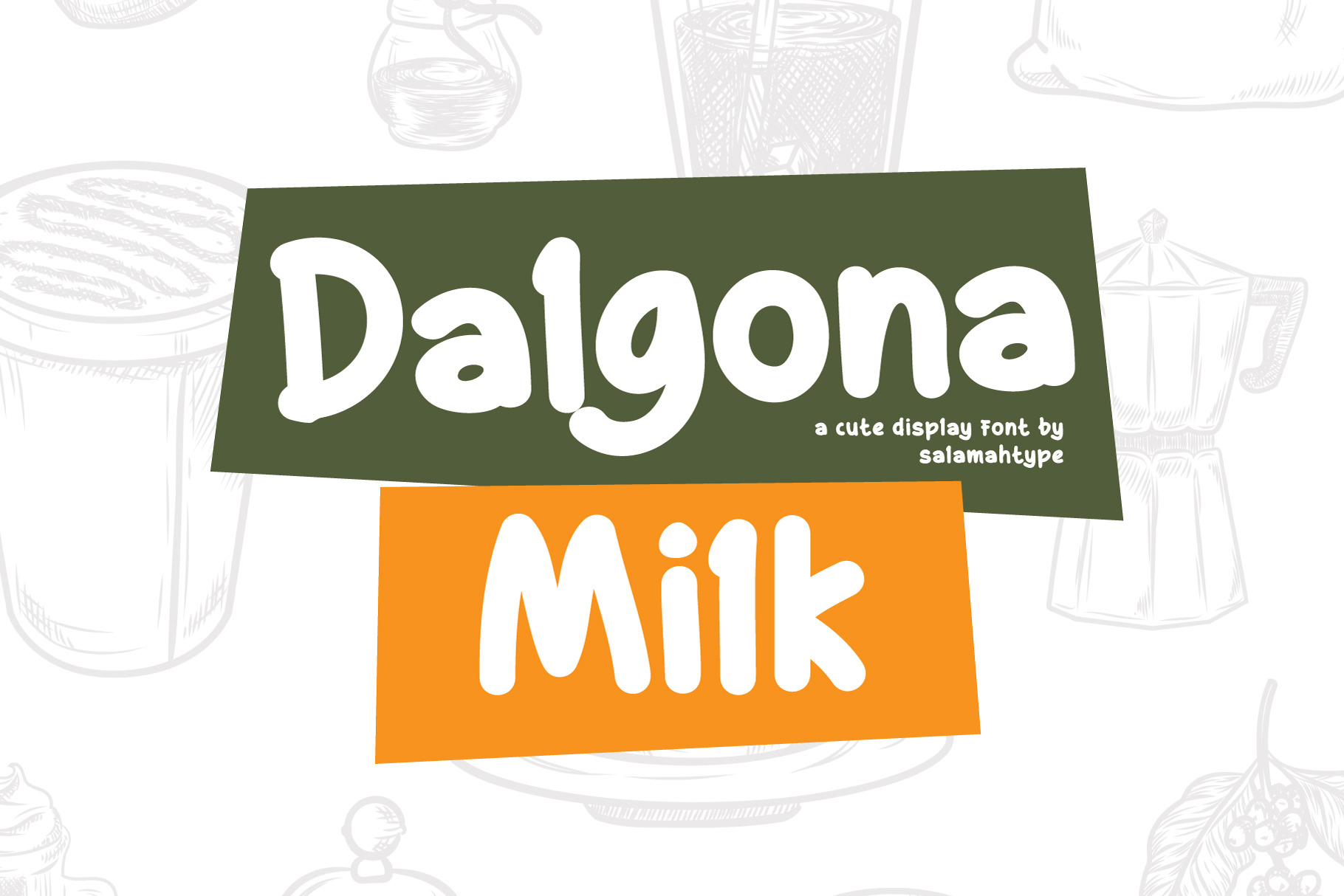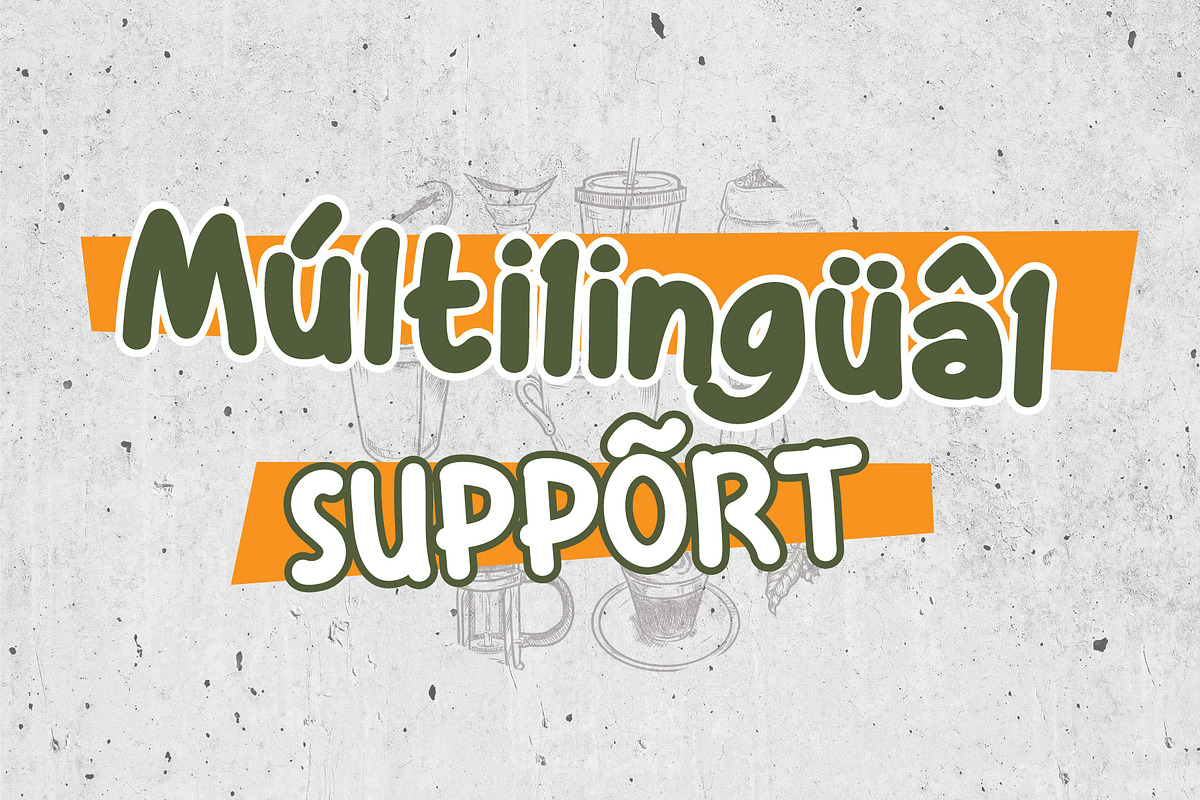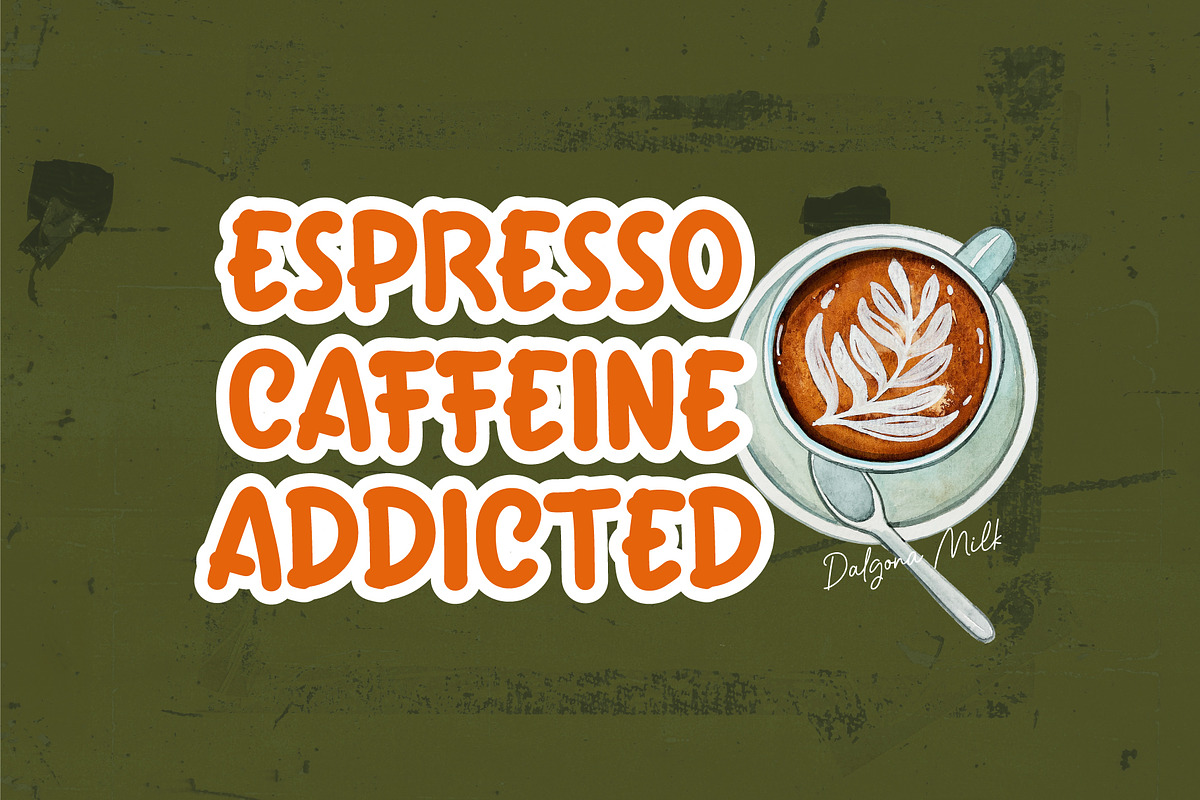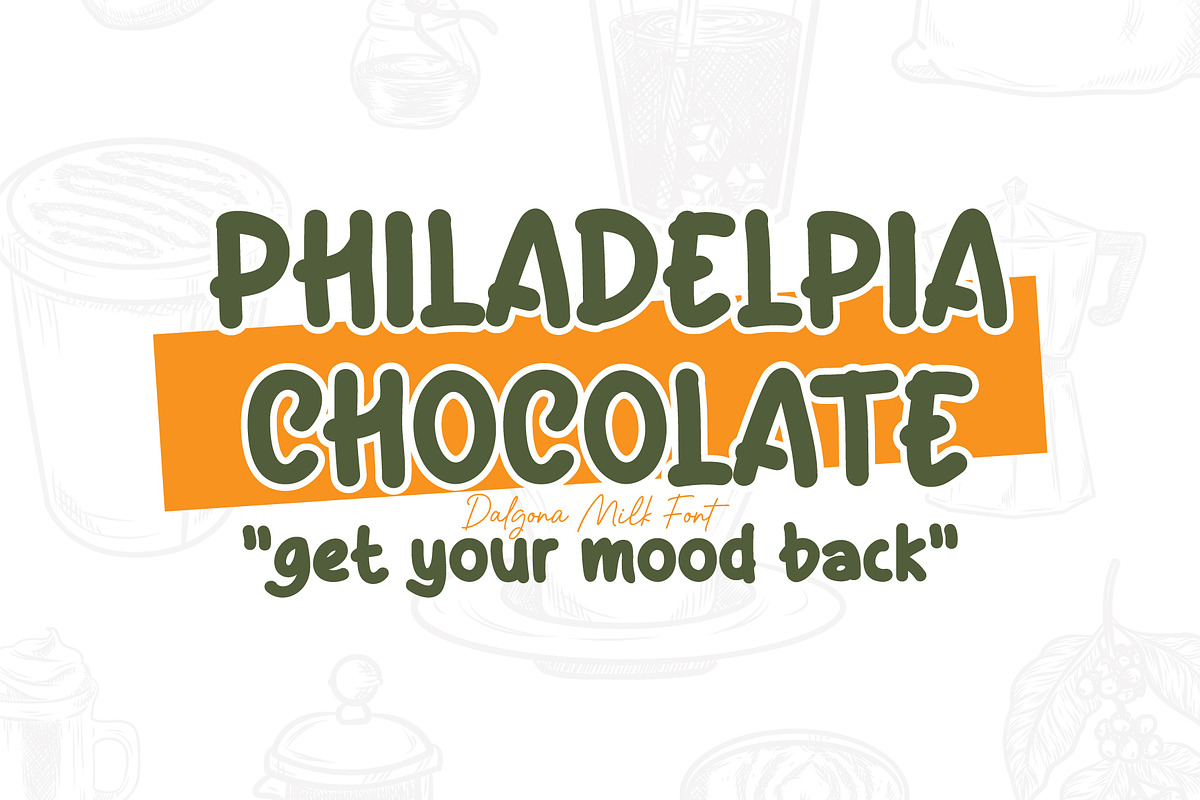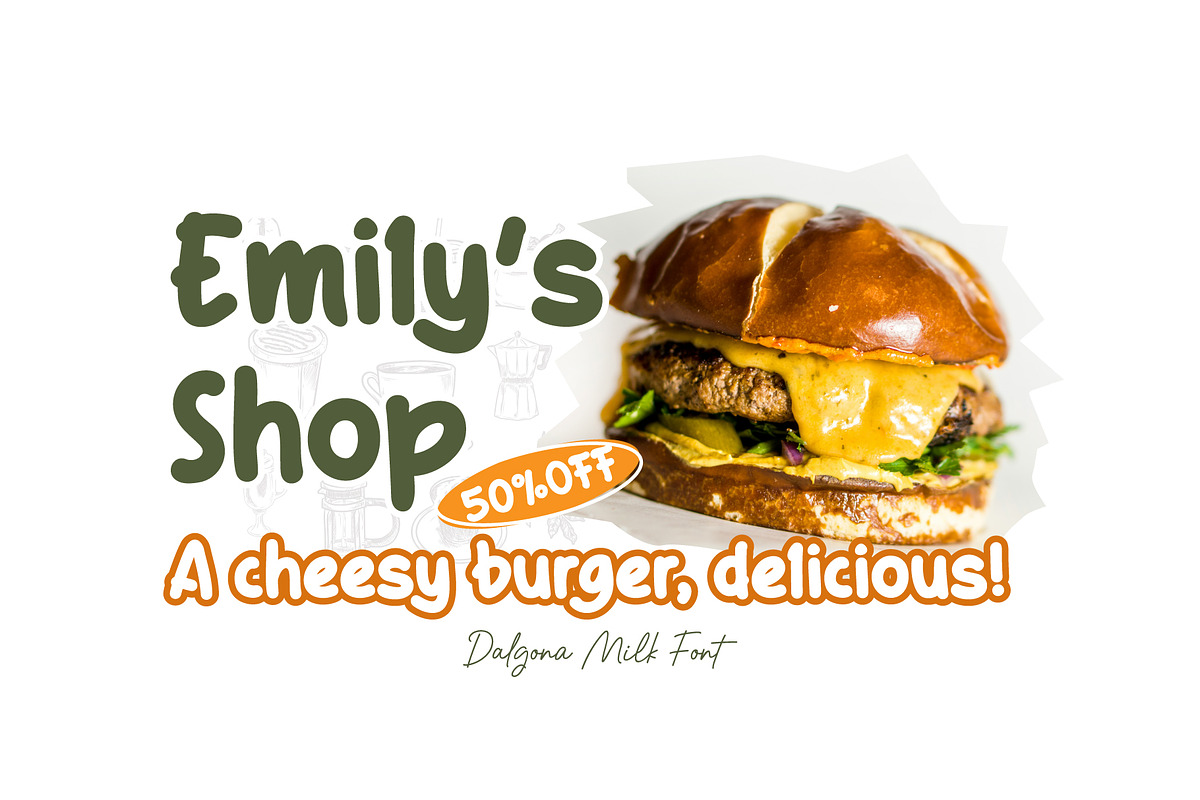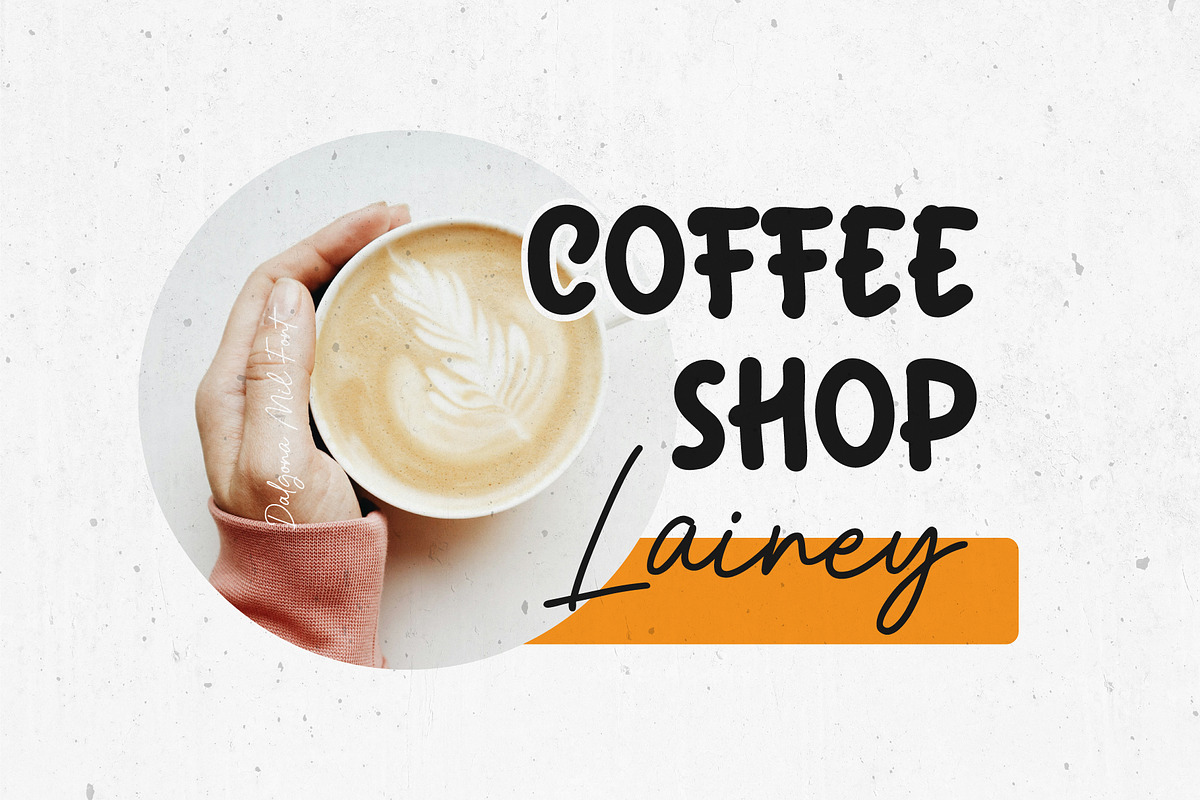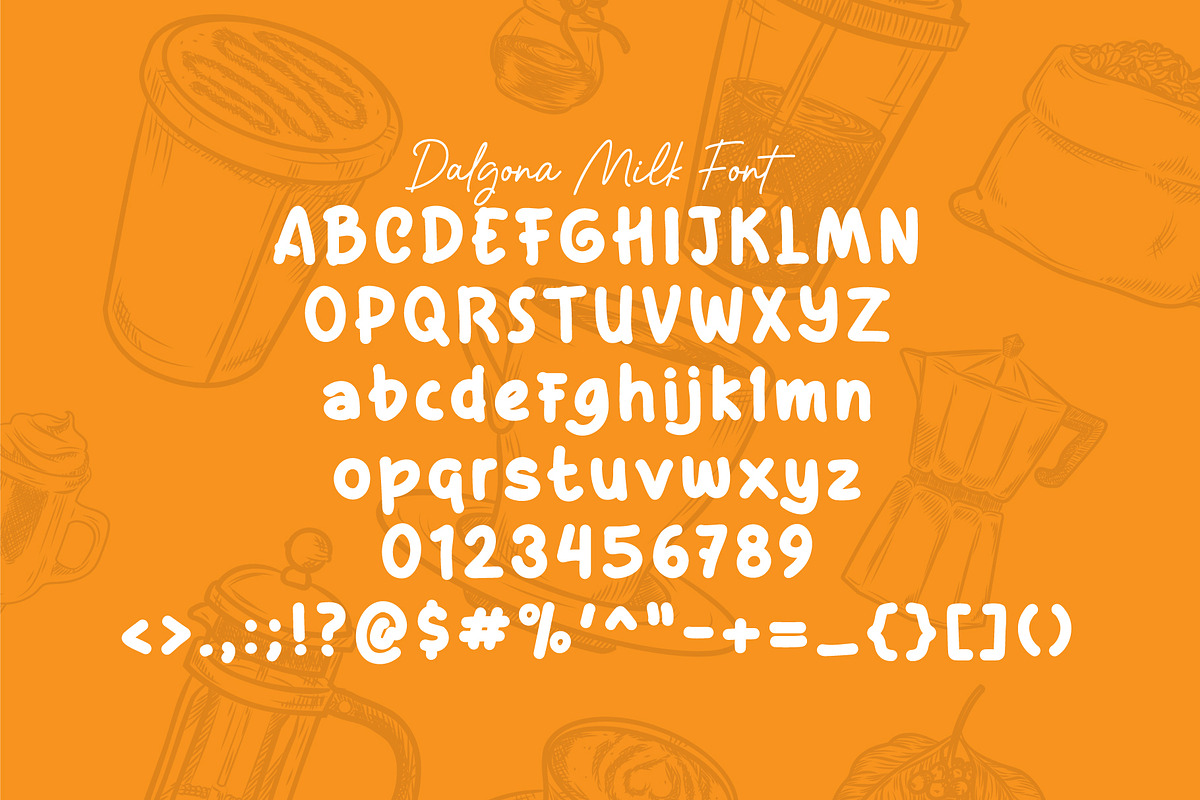
Dalgona Milk - Cute Font
Dalgona Milk is a bold, cute, and playful font that brings a fun and clean look to any design. Its smooth curves and cheerful vibe make it perfect for creative logos, eye-catching posters, product packaging, and more. Whether you’re working on a branding project or a quirky design, Dalgona Milk adds a sweet and stylish touch that stands out effortlessly.
Dalgona Milk includes:
- Symbols and punctuation